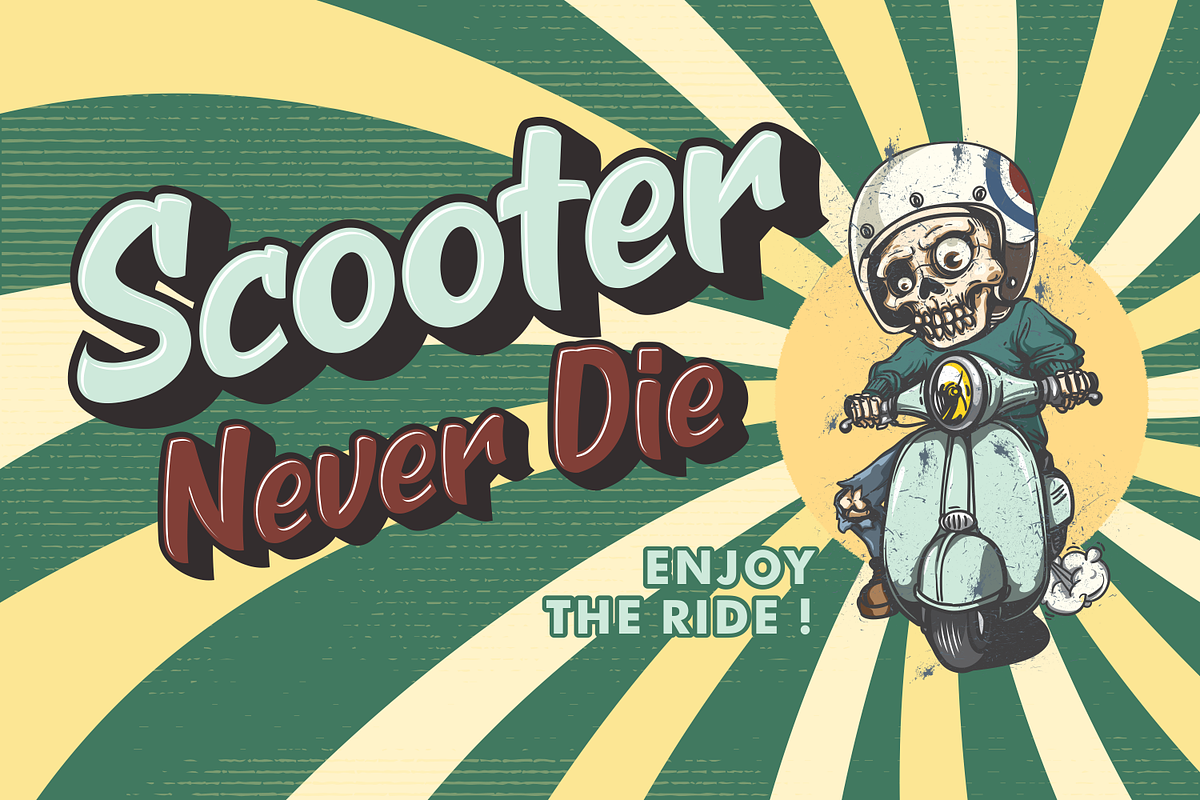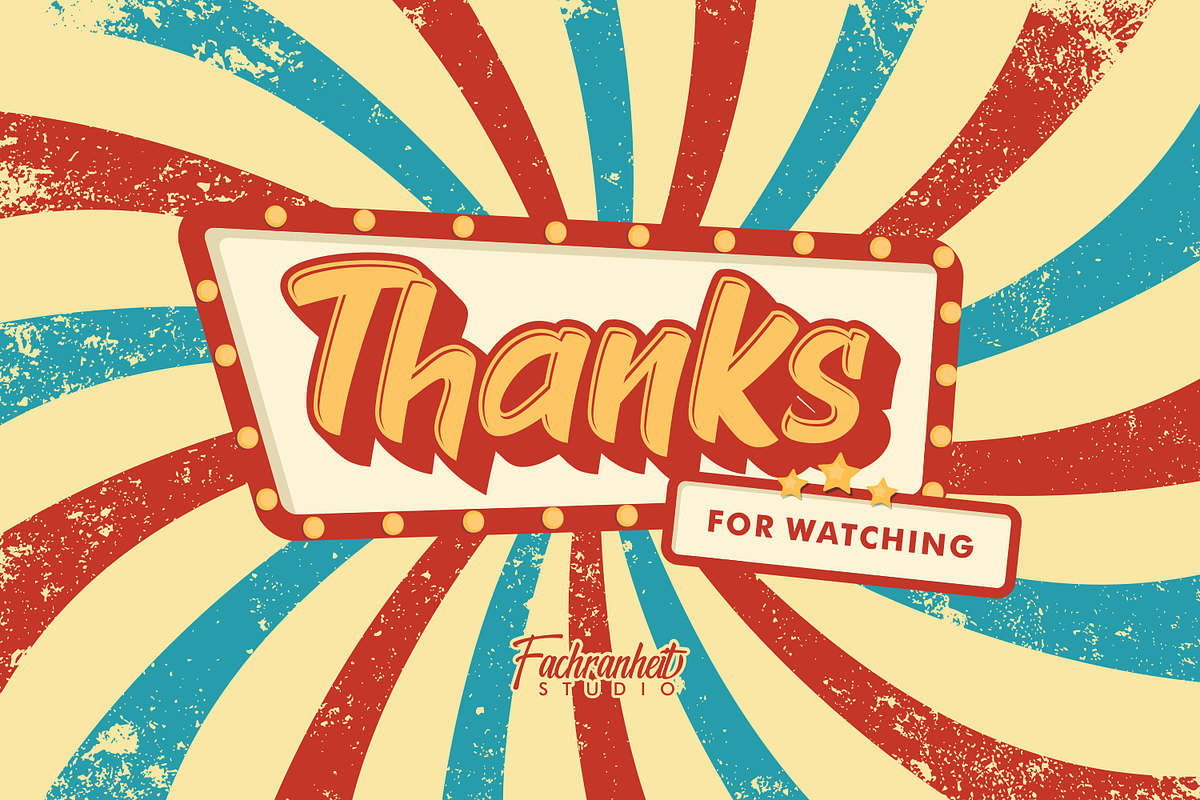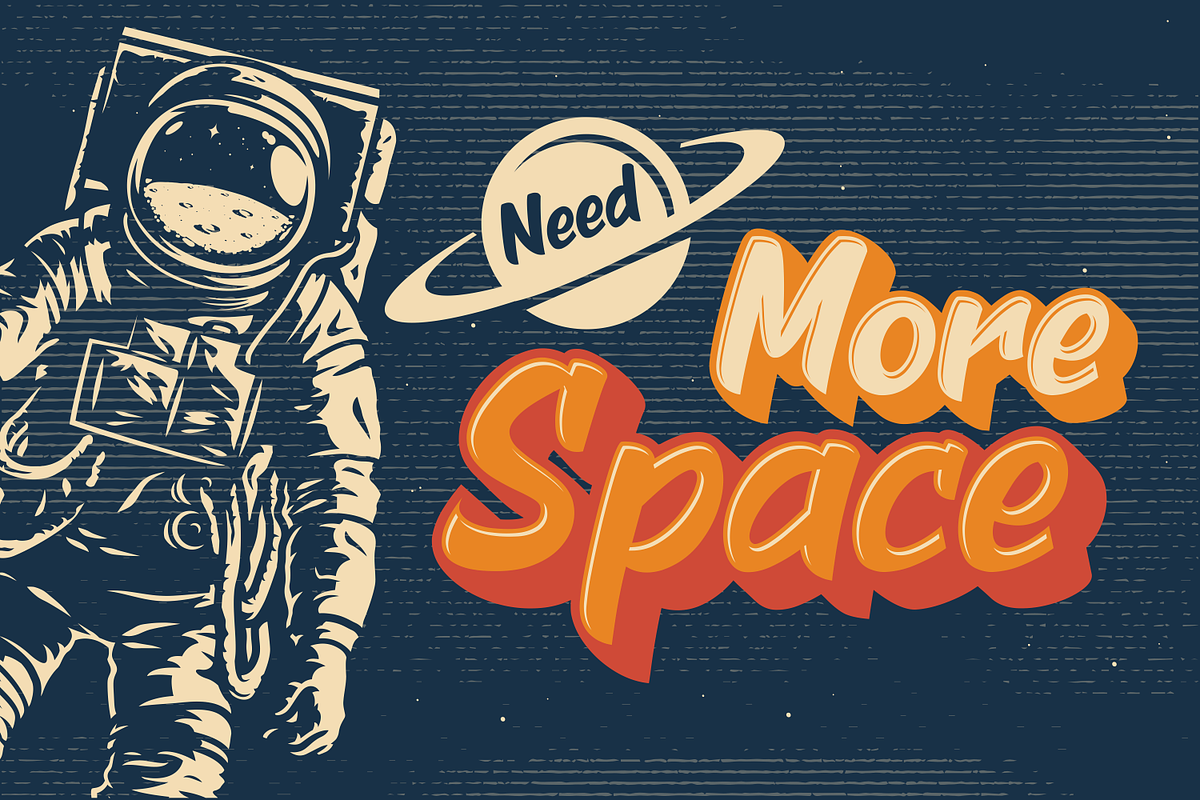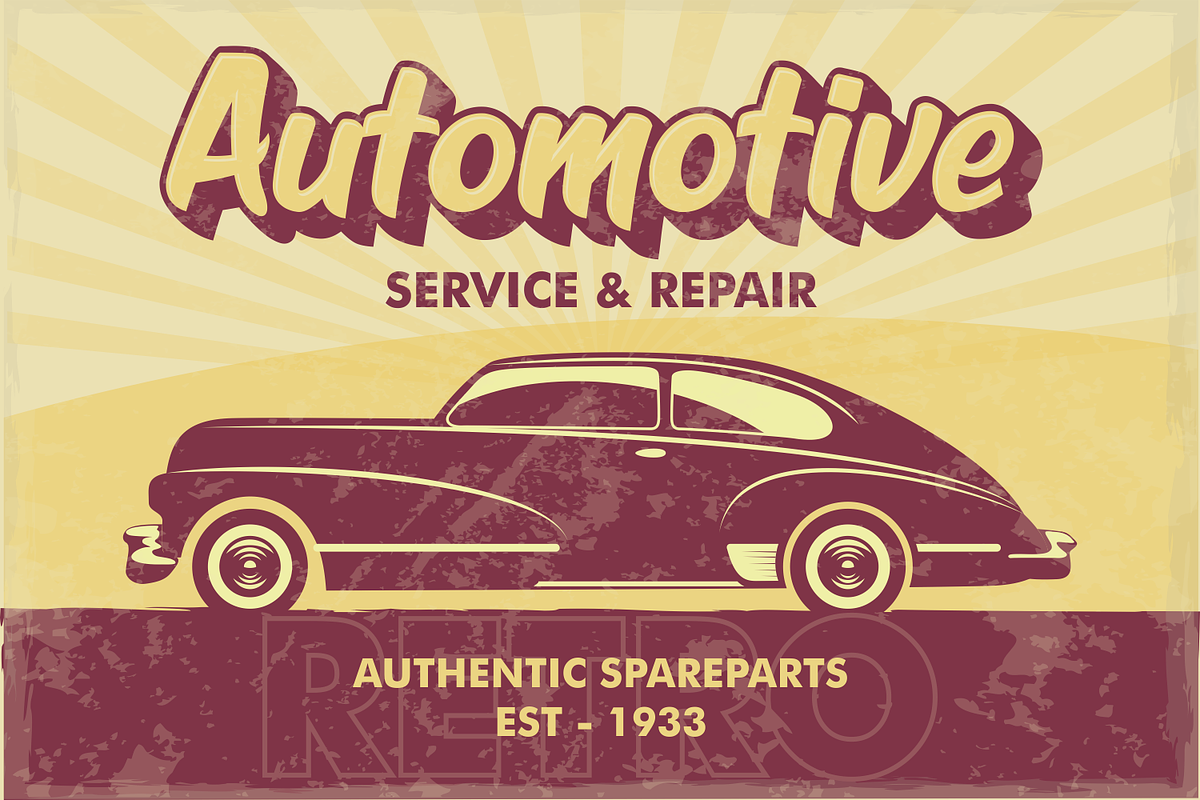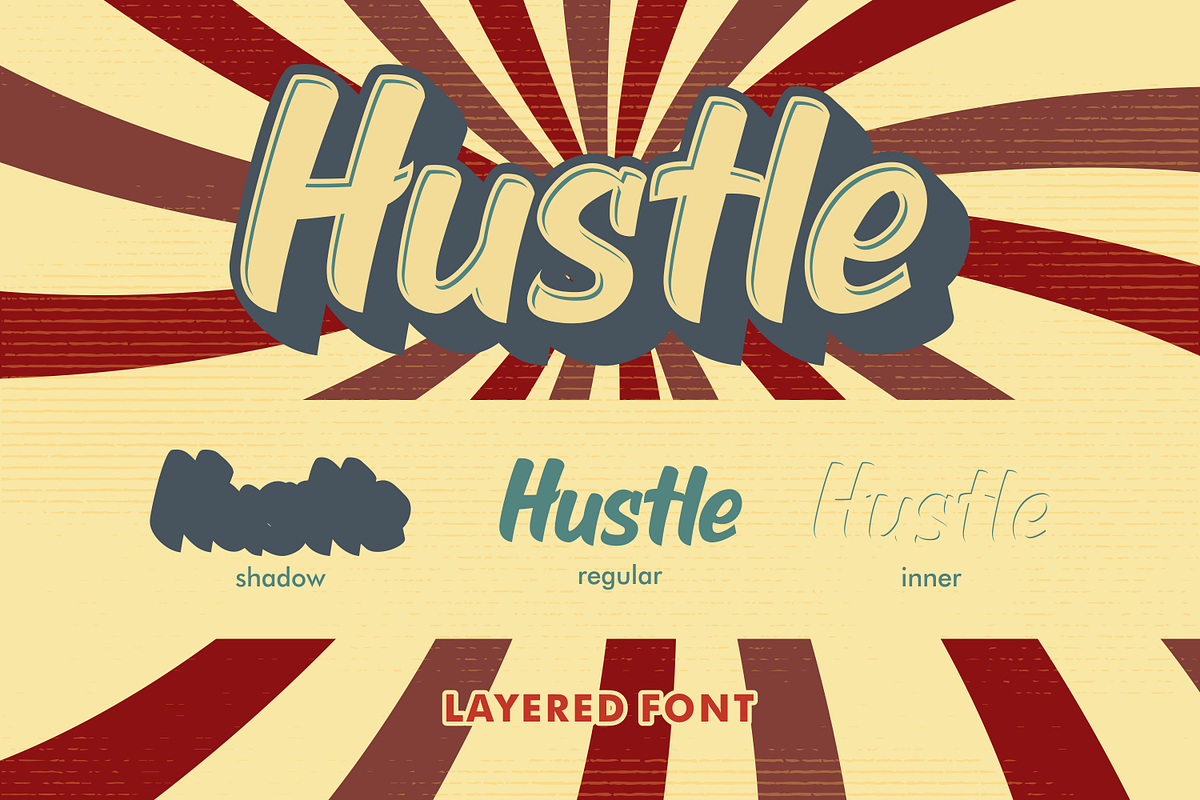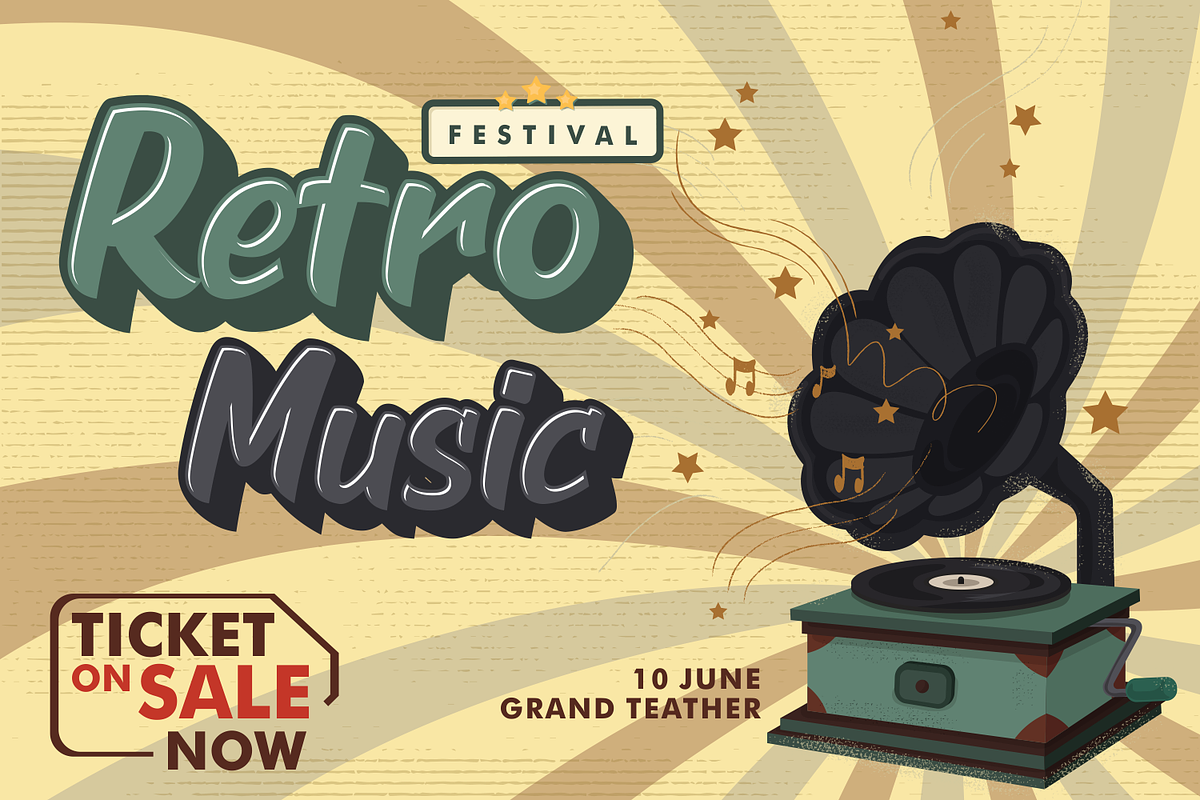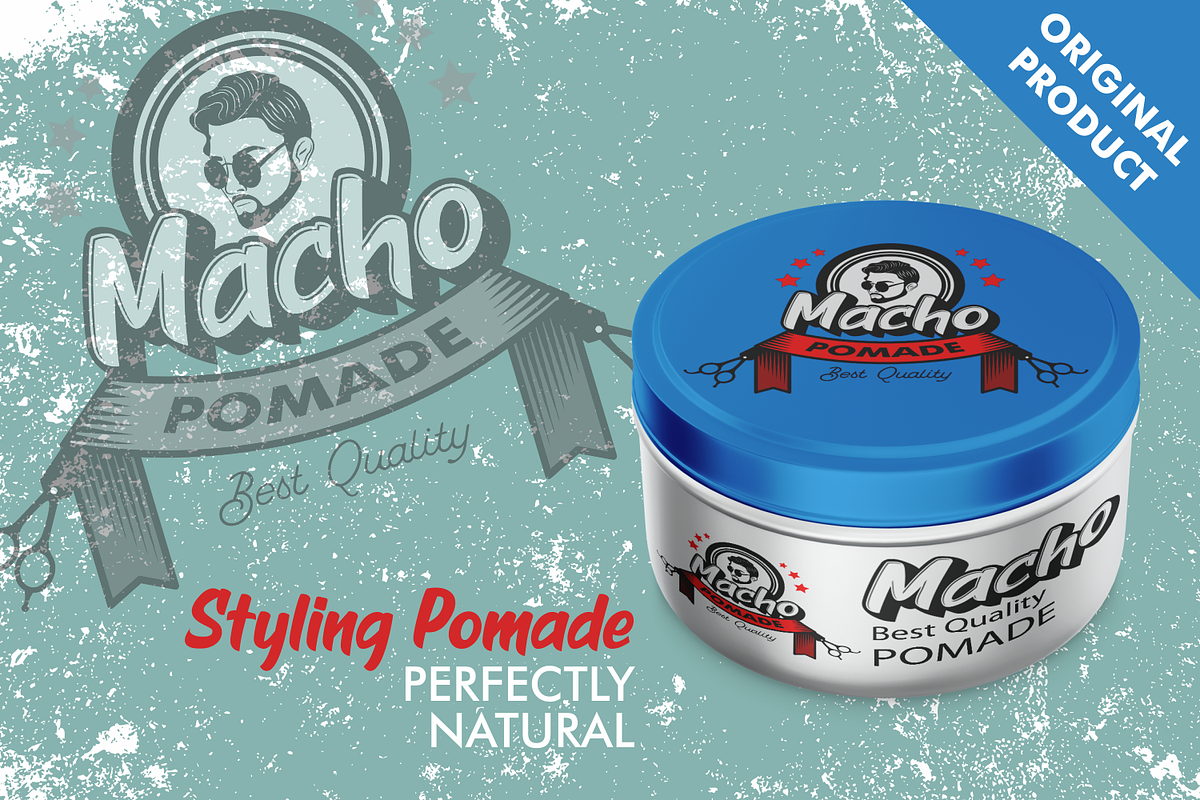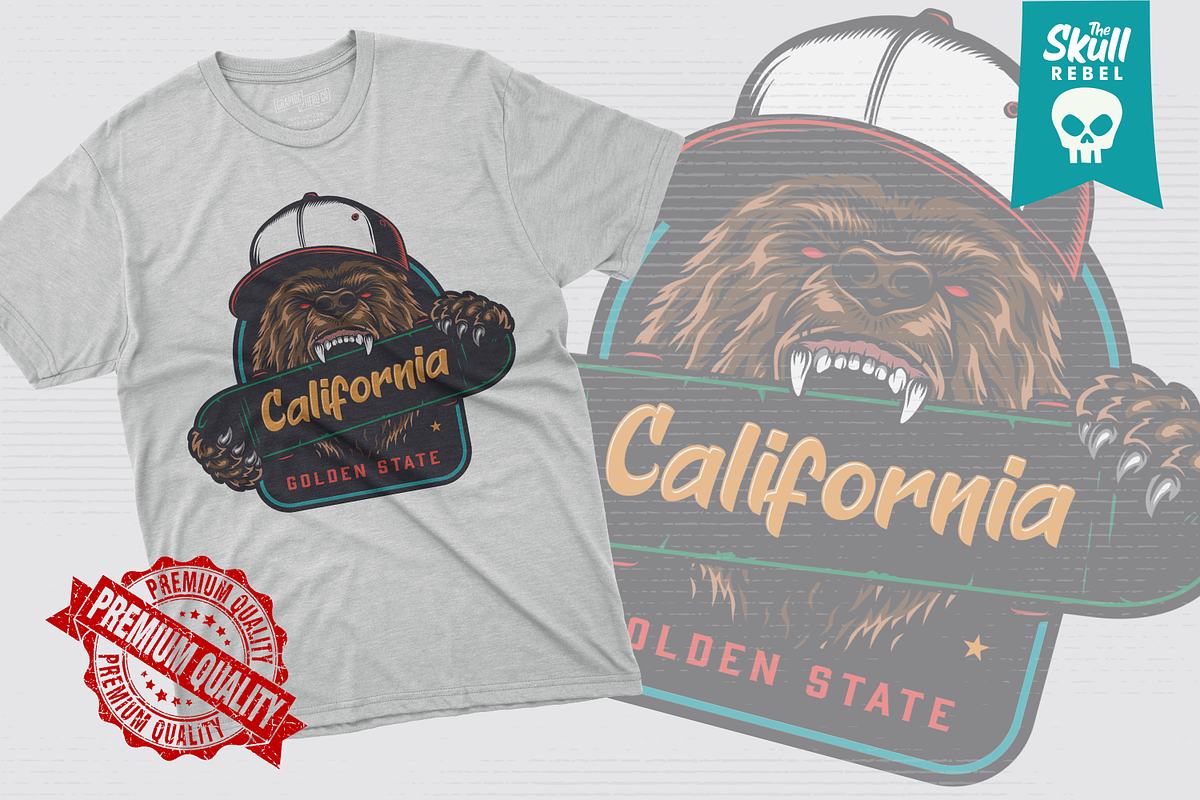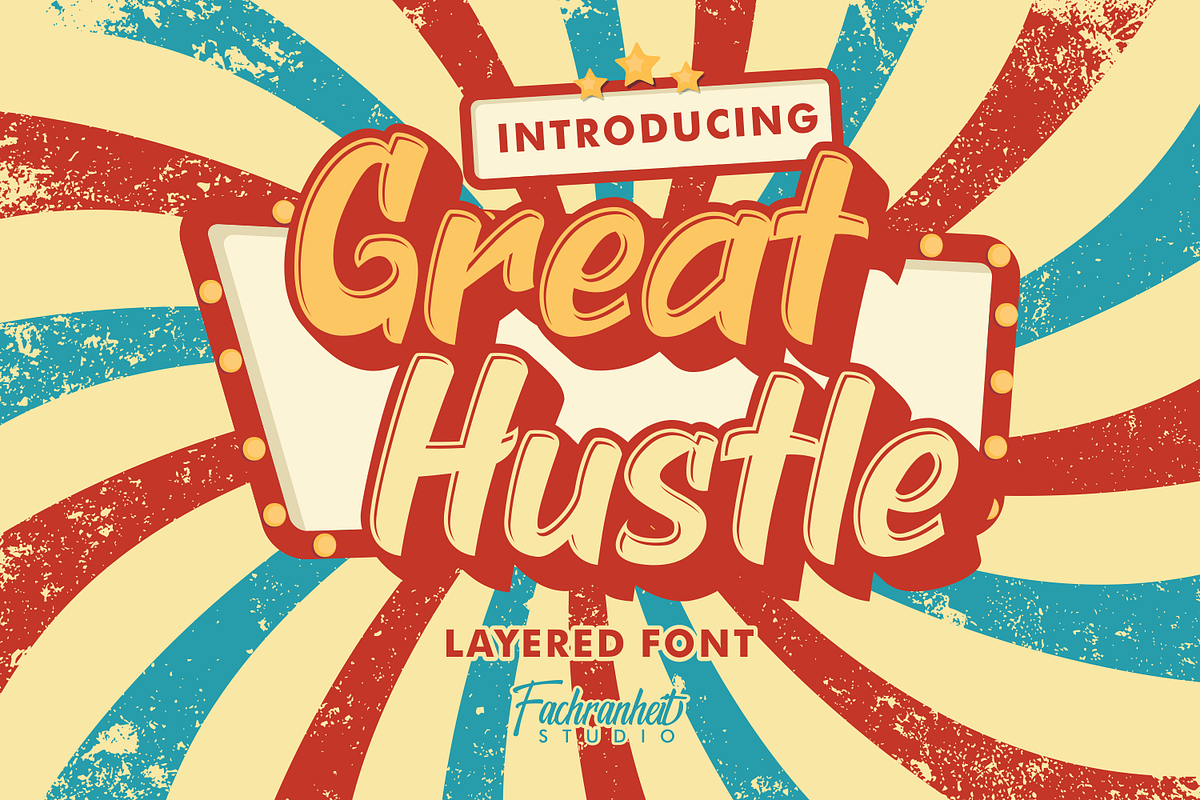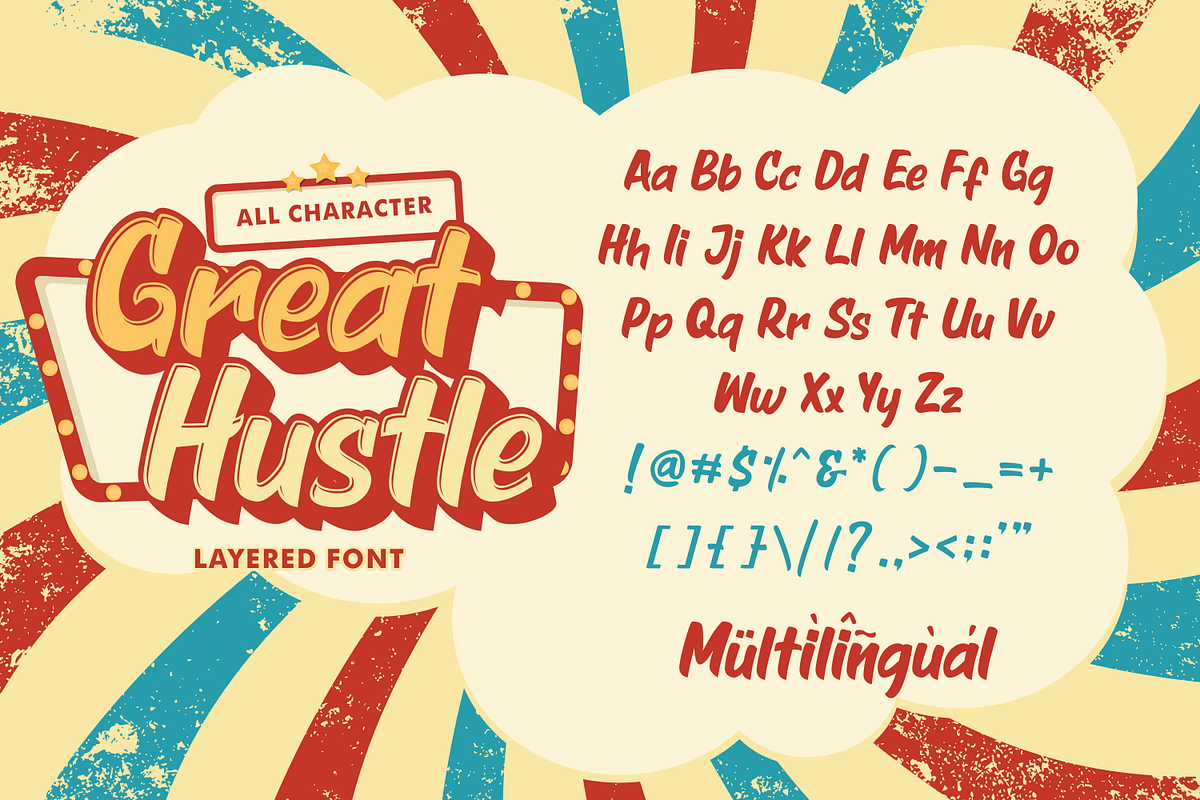
Great Hustle
Great Hustle is a layered font
The unique characteristics of Great Hustle make it very suitable for various purposes such as quotes, t-shirt designs, flyers, youtube channels, labels, logos etc.
- Great Hustle Basic
- Great Hustle Inner
- Great Hustle Shadow
- Multilanguage Support